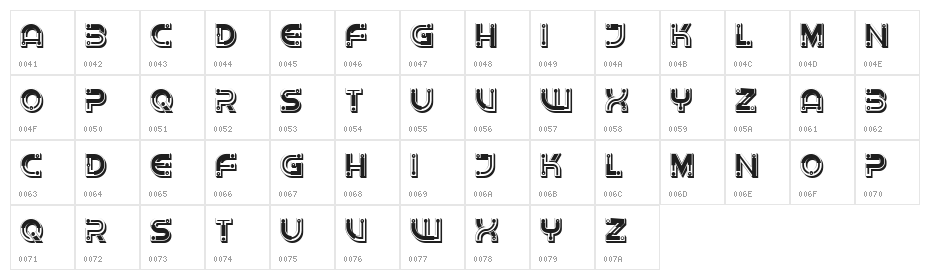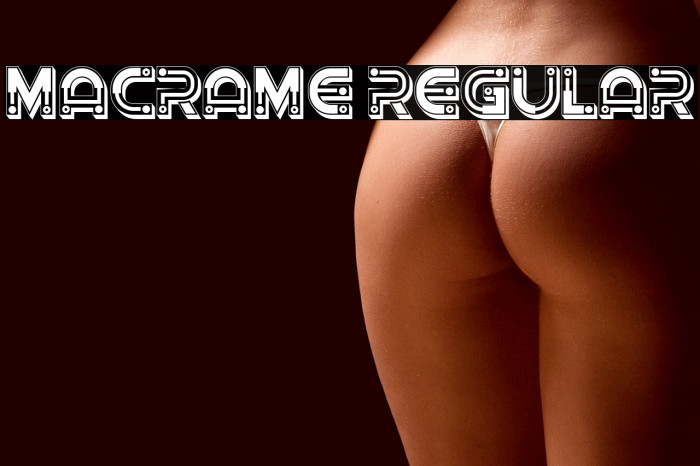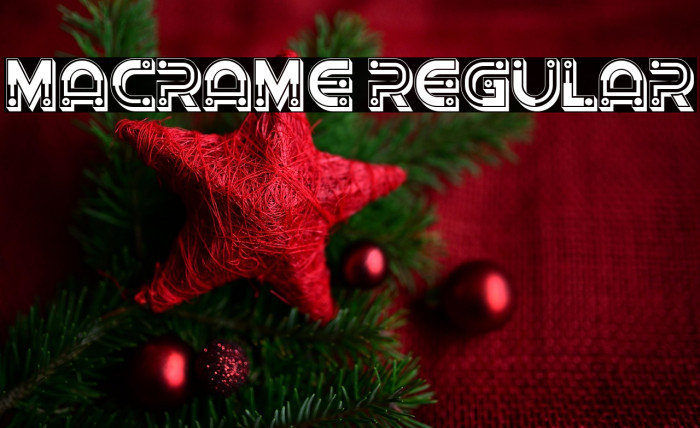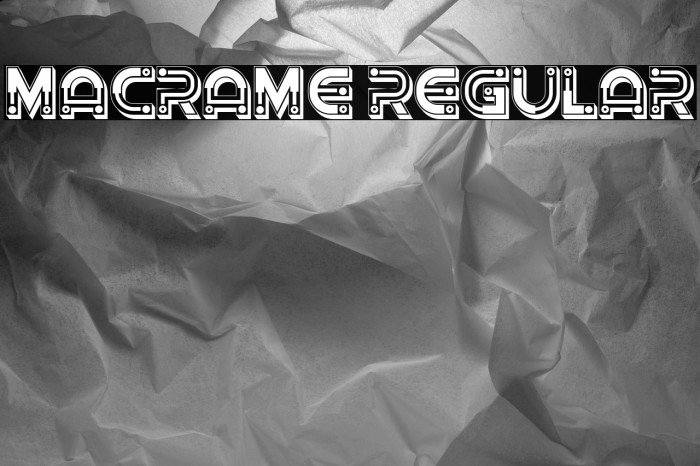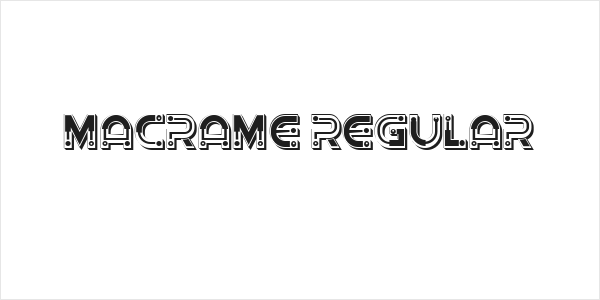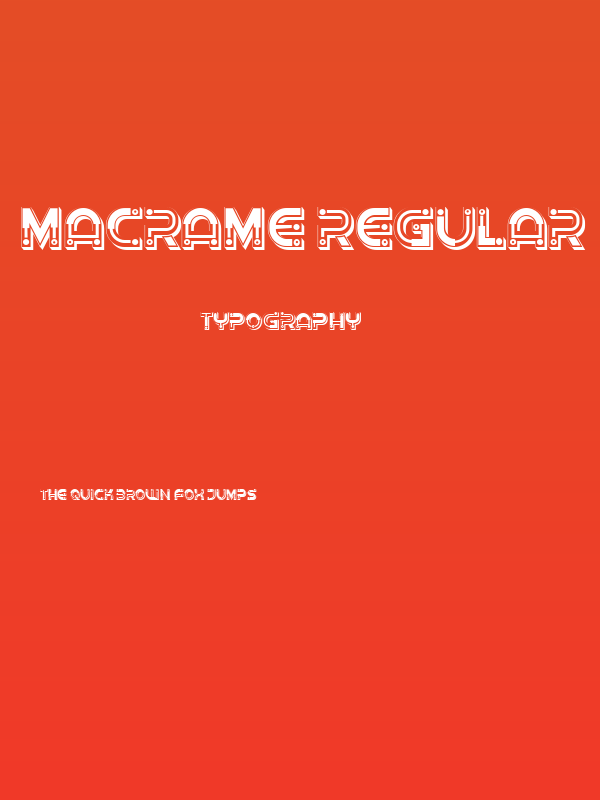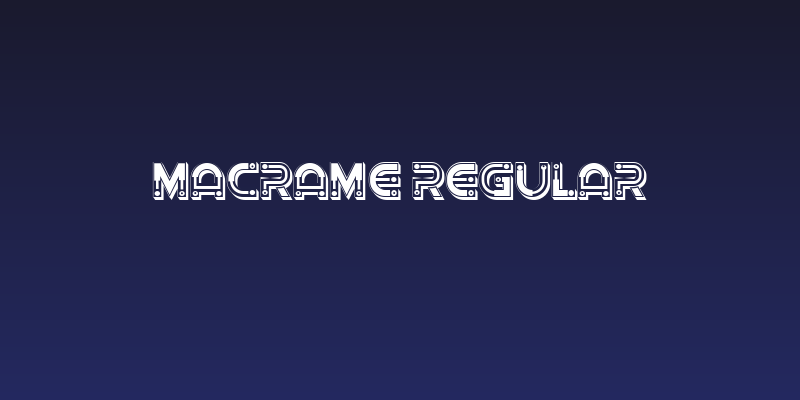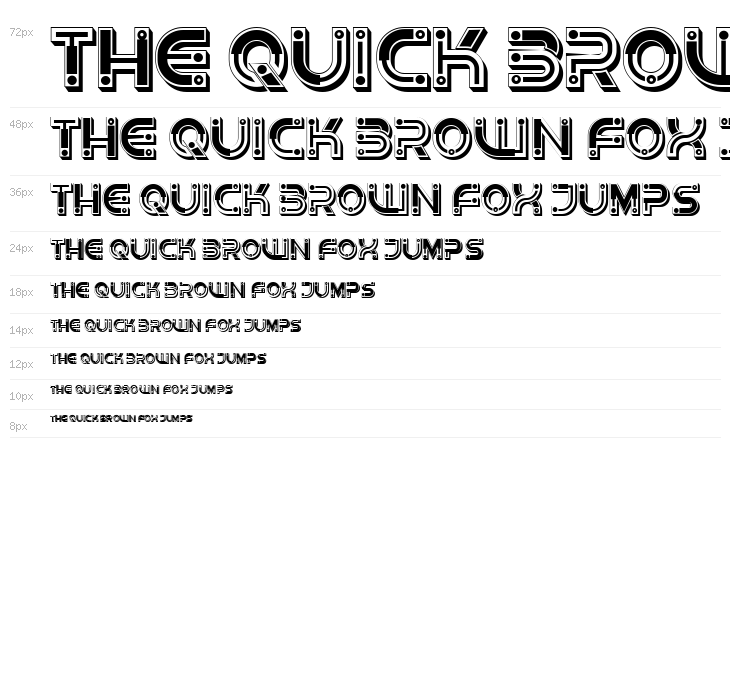
Macrame Regular Font
Macrame Regular Description
This font features a bold, geometric design with a futuristic and industrial feel. The characters are constructed with thick lines and circular cutouts, giving them a mechanical and structured appearance. The use of negative space within the letters adds a unique visual interest, making it stand out as a display typeface. The font's design is consistent across all characters, maintaining a uniform look that is both modern and distinctive. Its boldness and decorative elements make it suitable for eye-catching headlines and creative projects.
| Proposed Projects | Ideal for use in technology branding, sci-fi themed posters, video game titles, and modern advertising campaigns. |